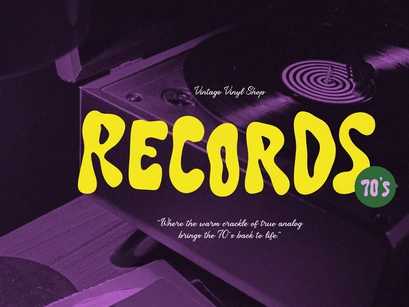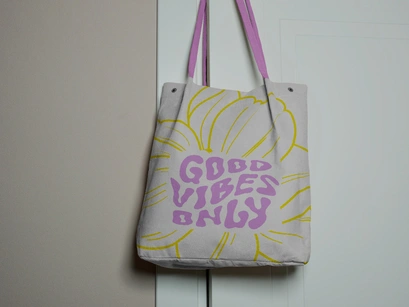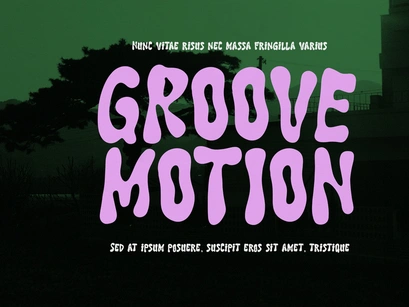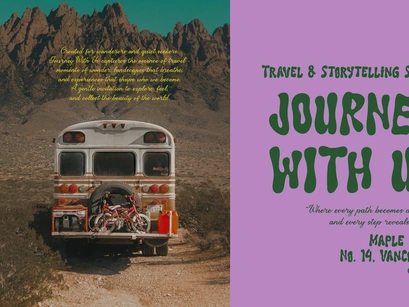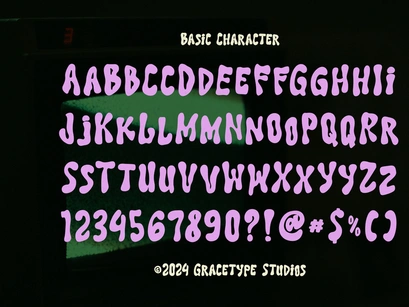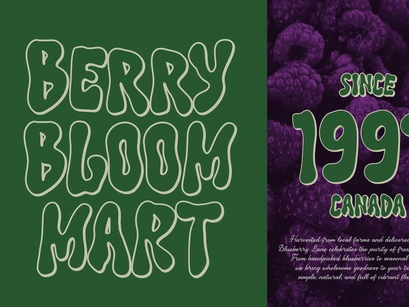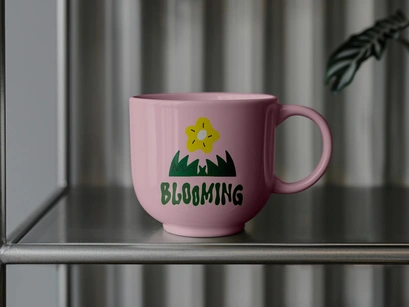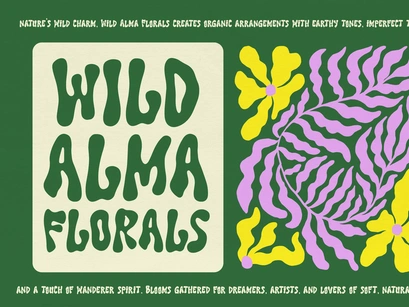
Perosra | Hand Drawn Liquid Font
Perosra Italic
Perosra
Perosra | Hand Drawn Liquid Font, from Gracetypestudio, suitable for any projects such as: logos, branding projects, homeware designs, product packaging, mugs, quotes, posters, shopping bags, t-shirts, book covers, name card, invitation cards, greeting cards, label, photography, watermark, special events, and all your other lovely projects that need a Hand Drawn taste.